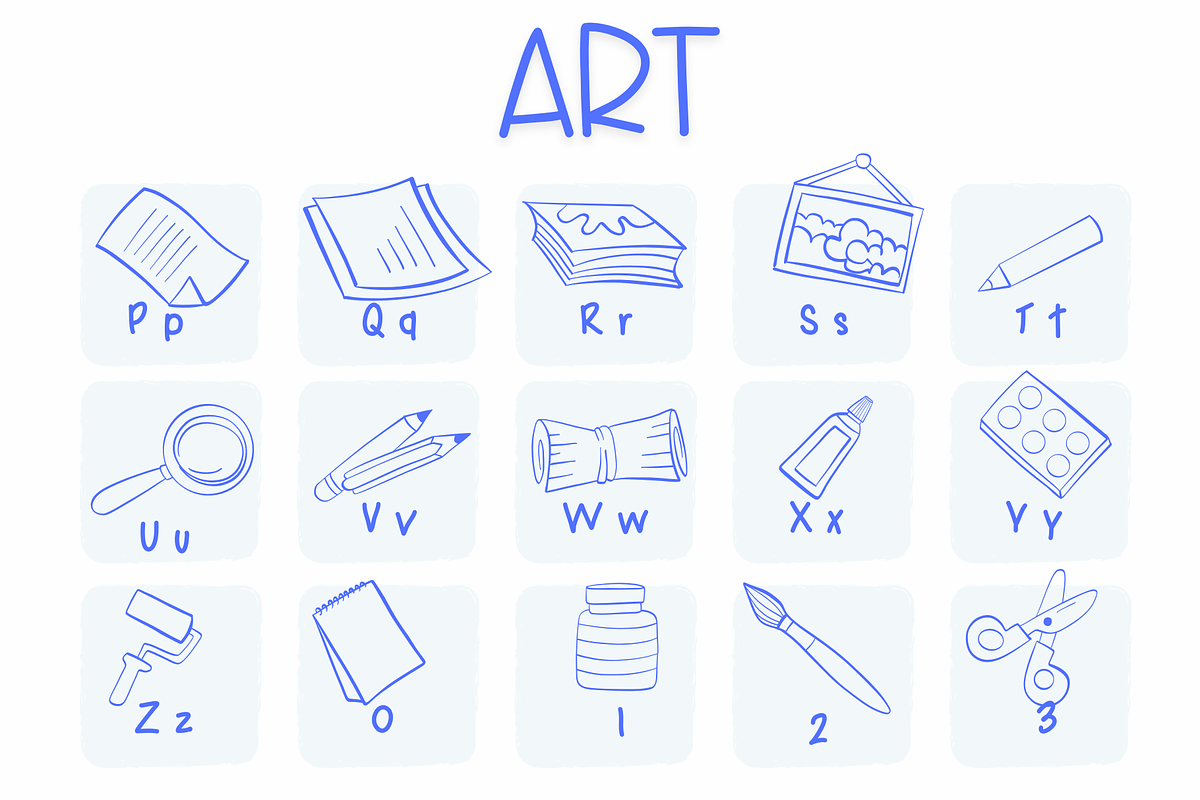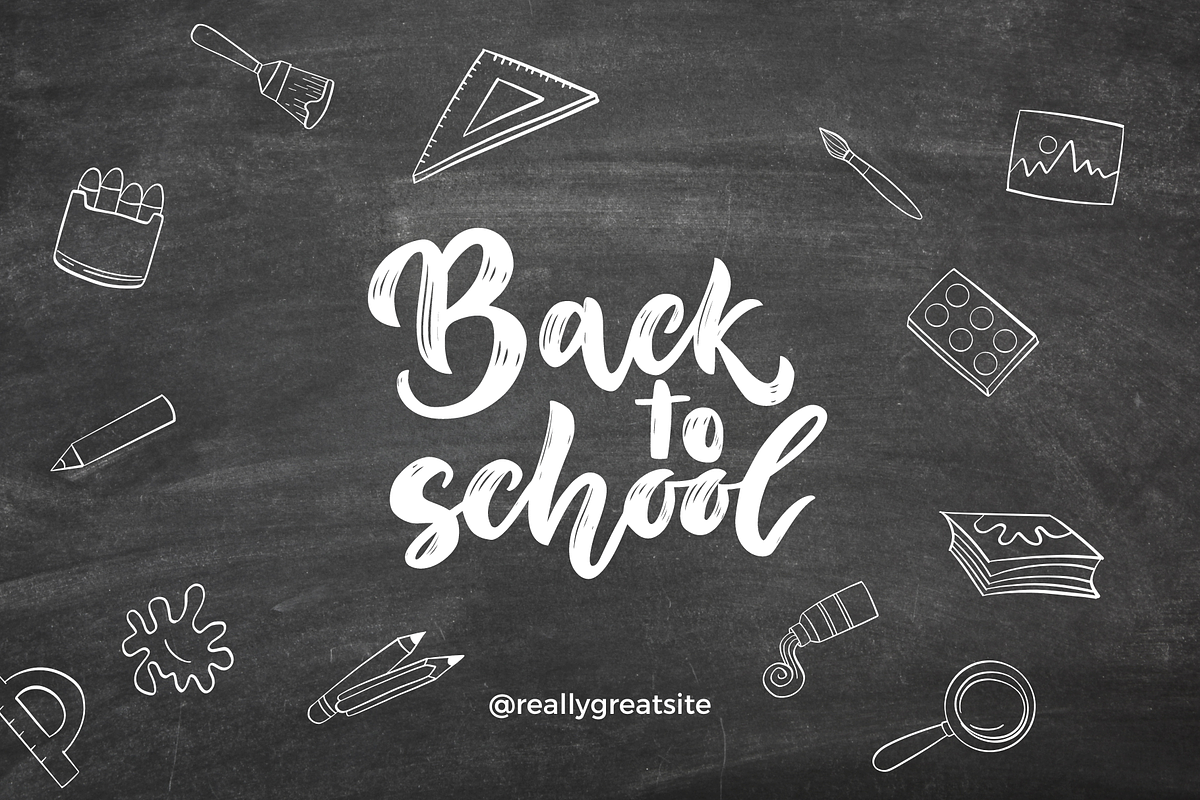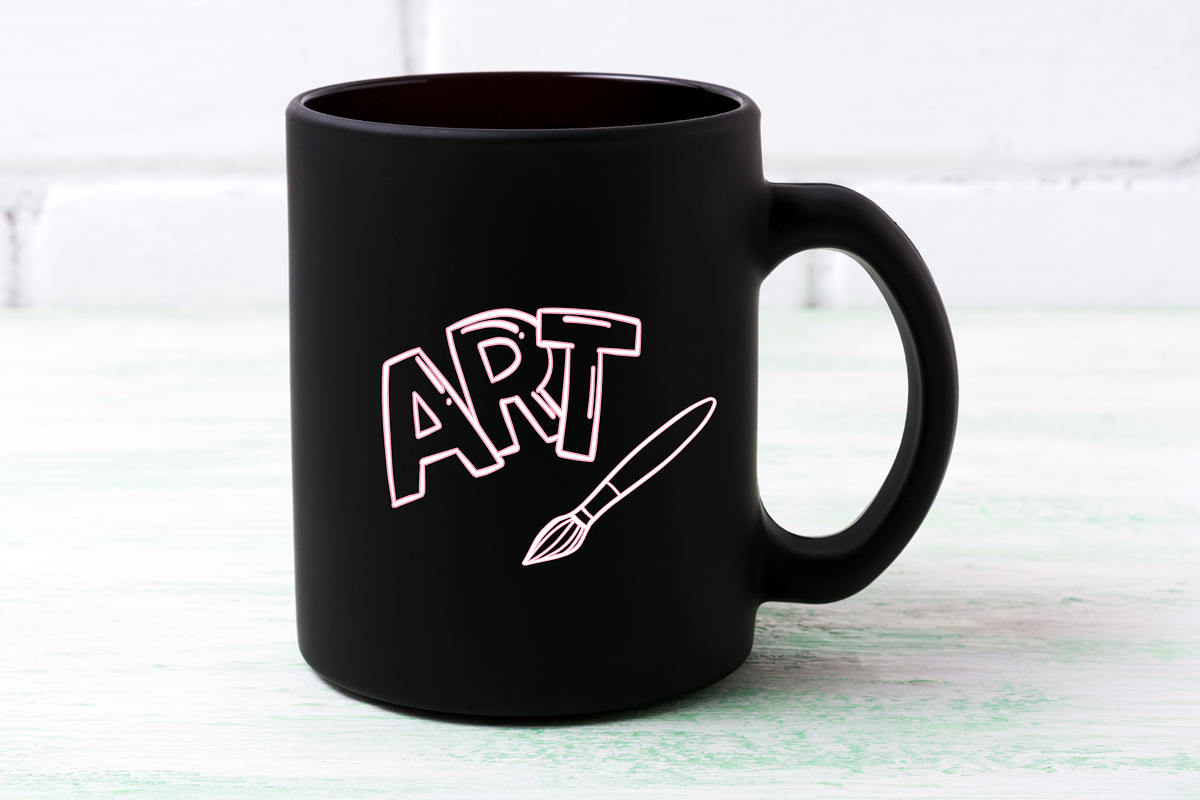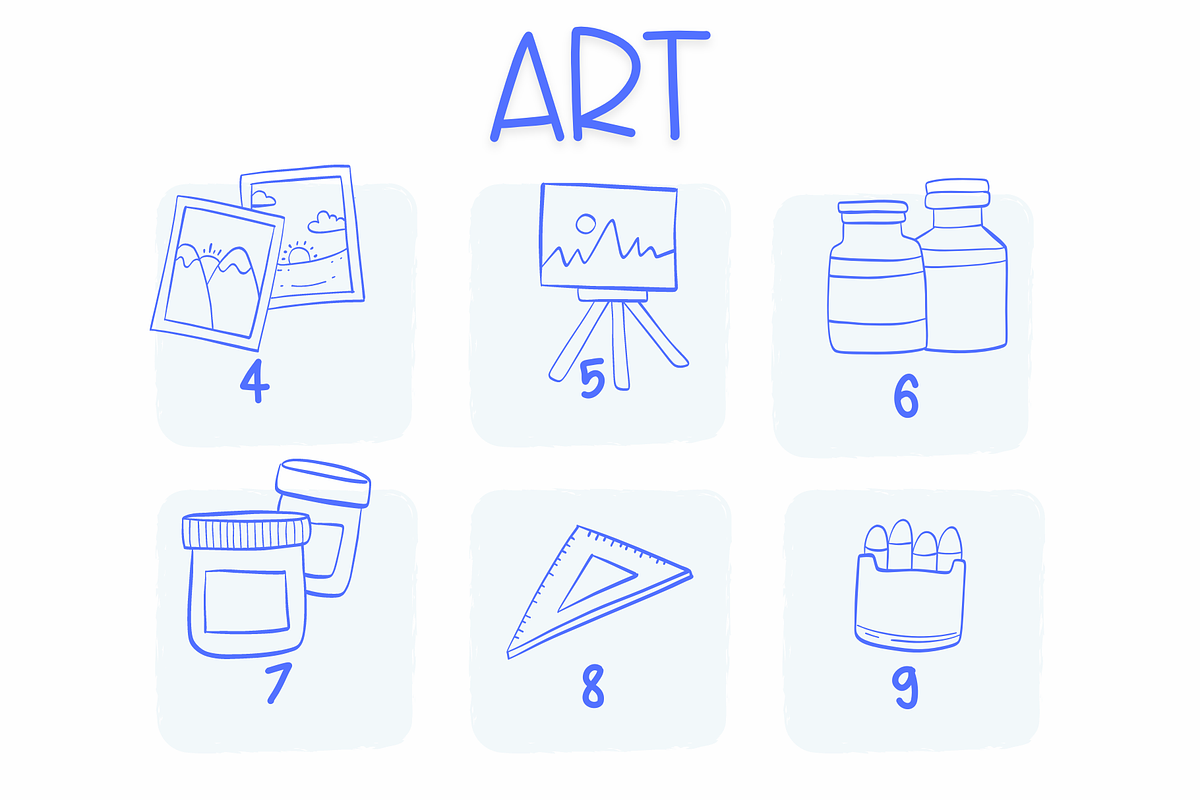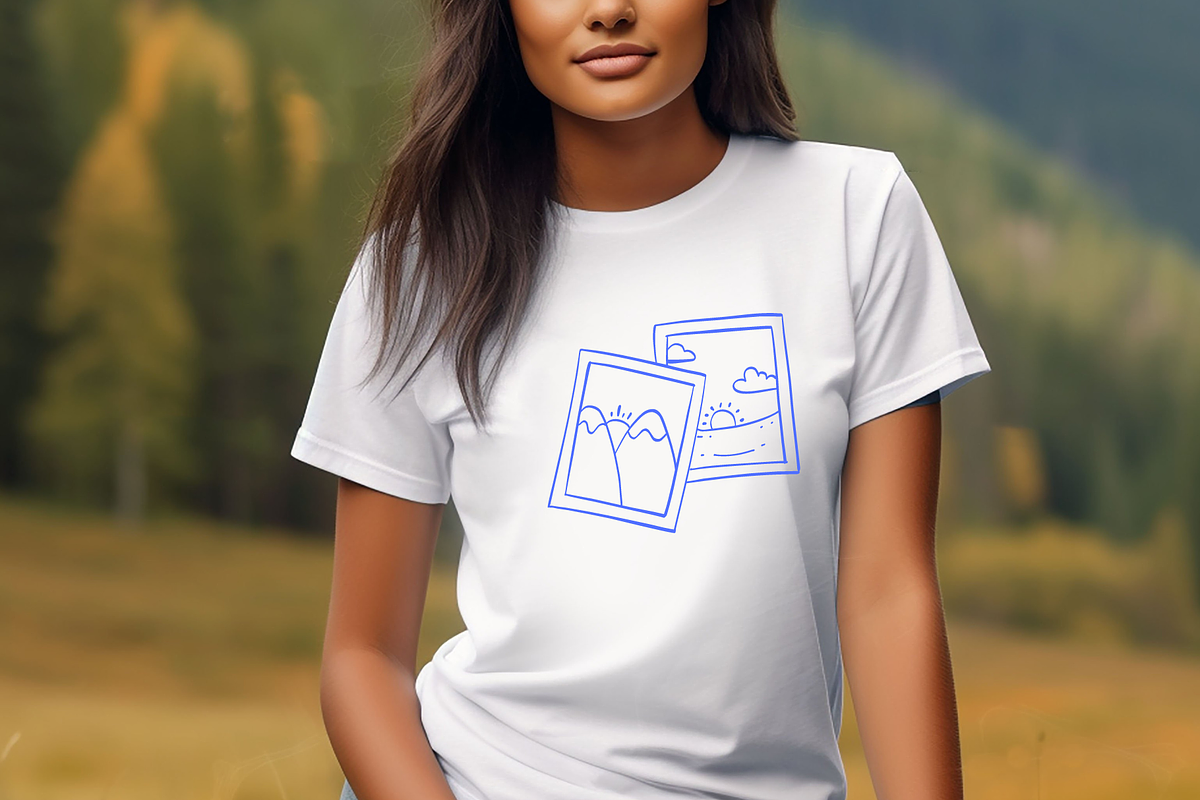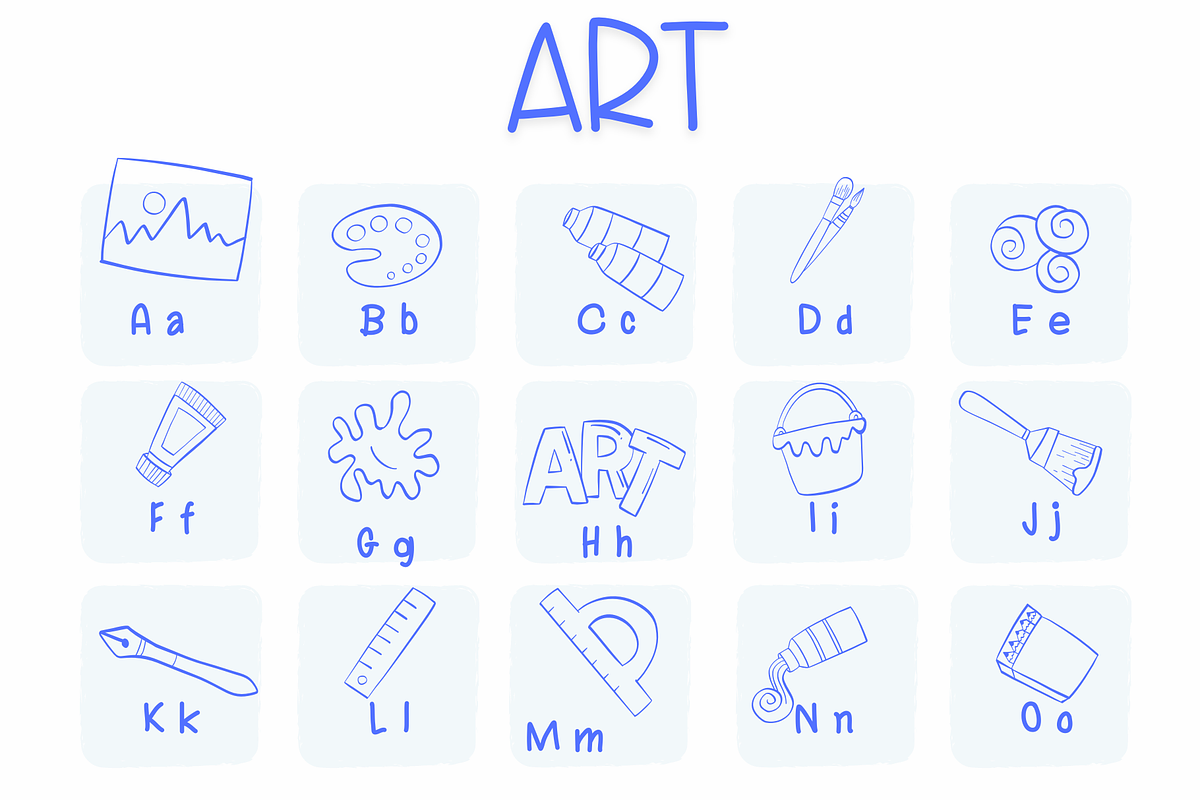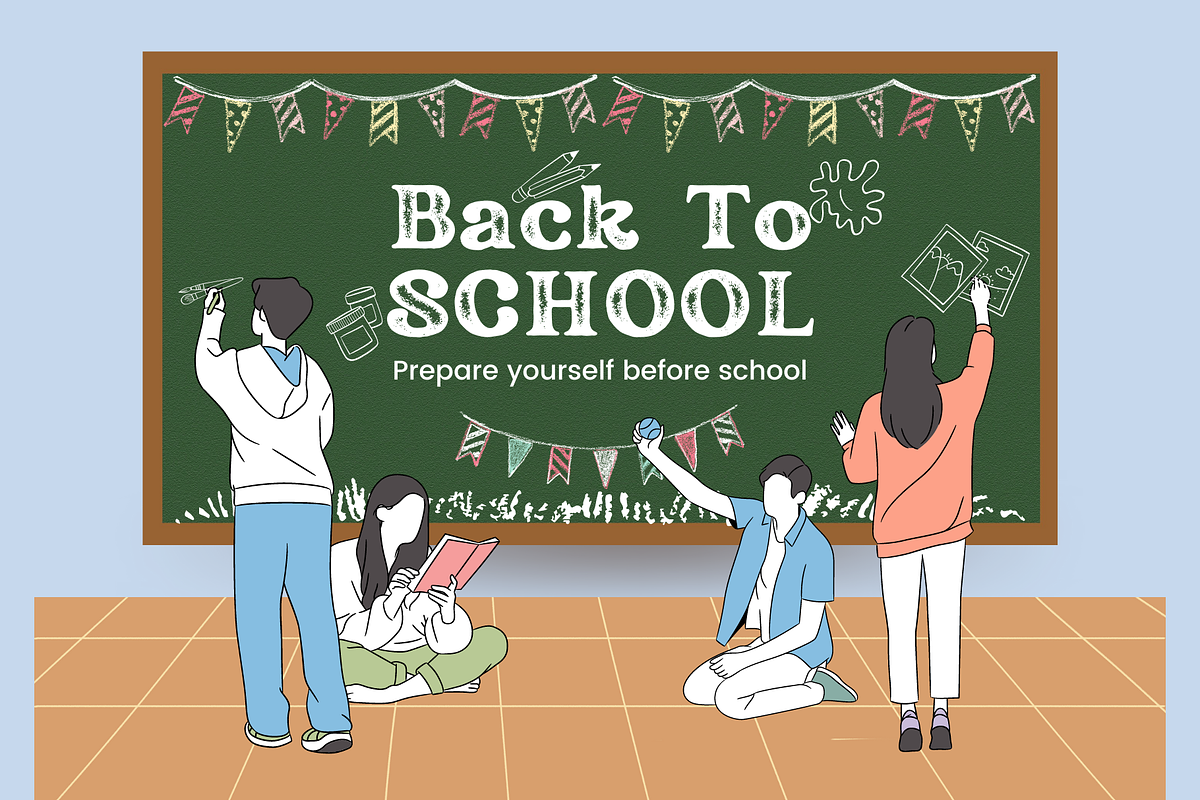
ART| Symbols Fonts
Why ART| Symbols Fonts is worth a look
ART| Symbols Fonts by Sirinart fits naturally into Branding, posters, packaging, typography.